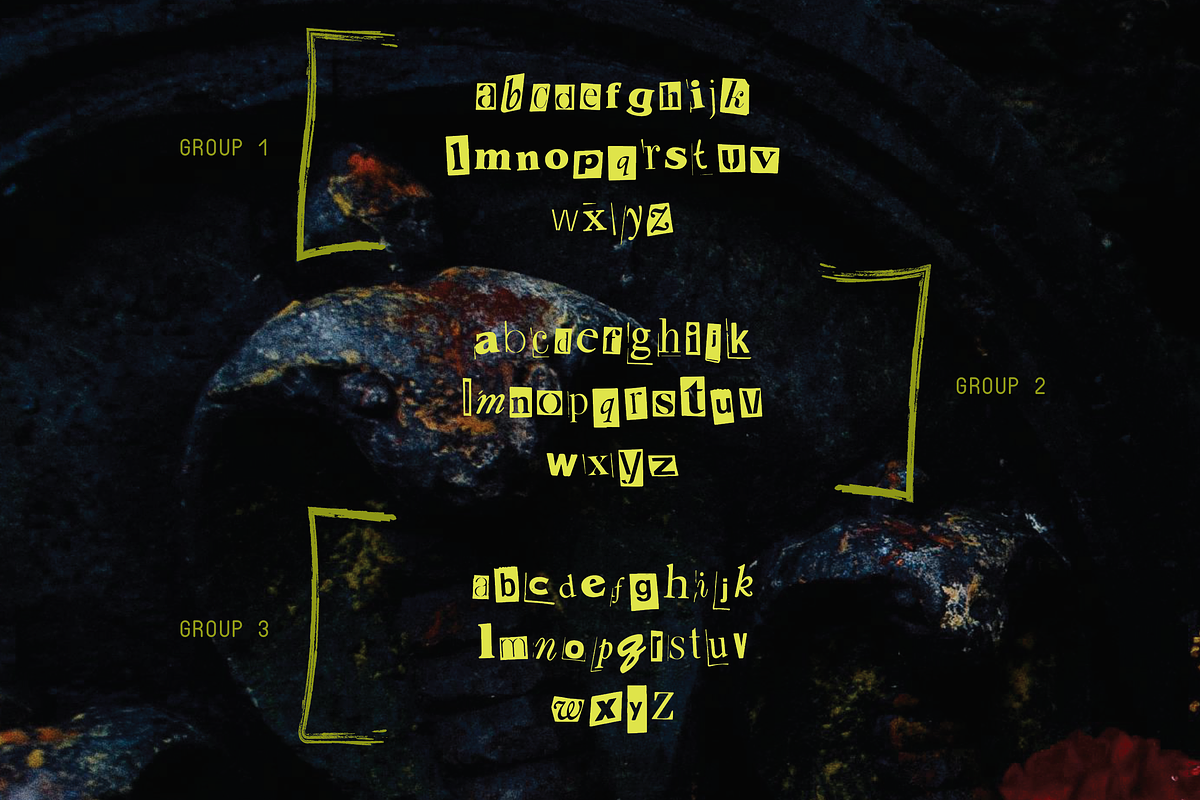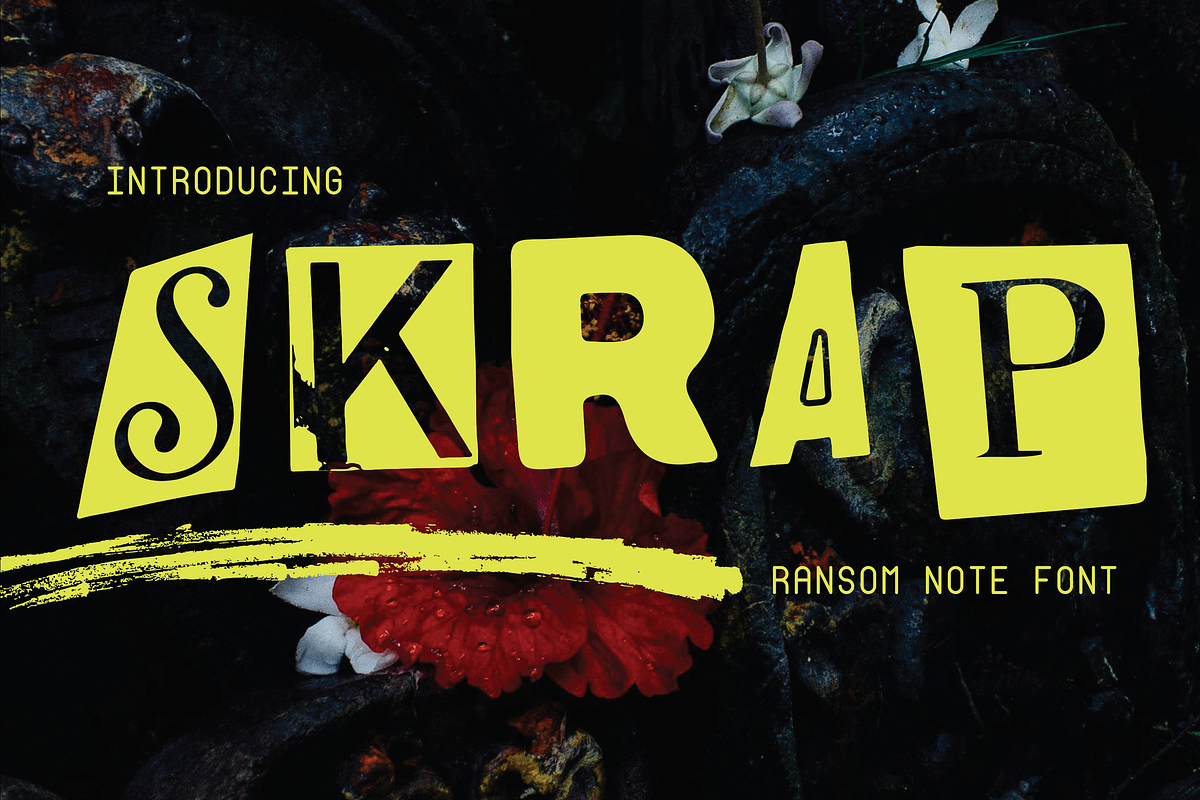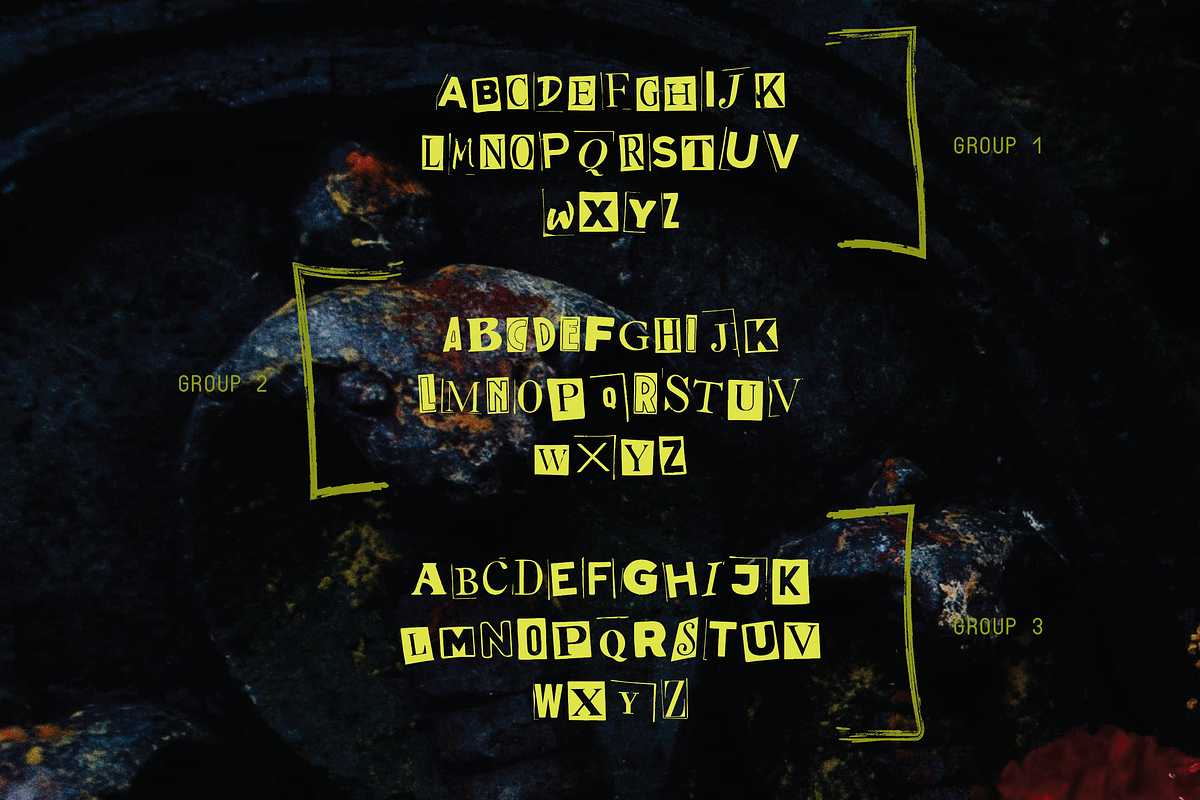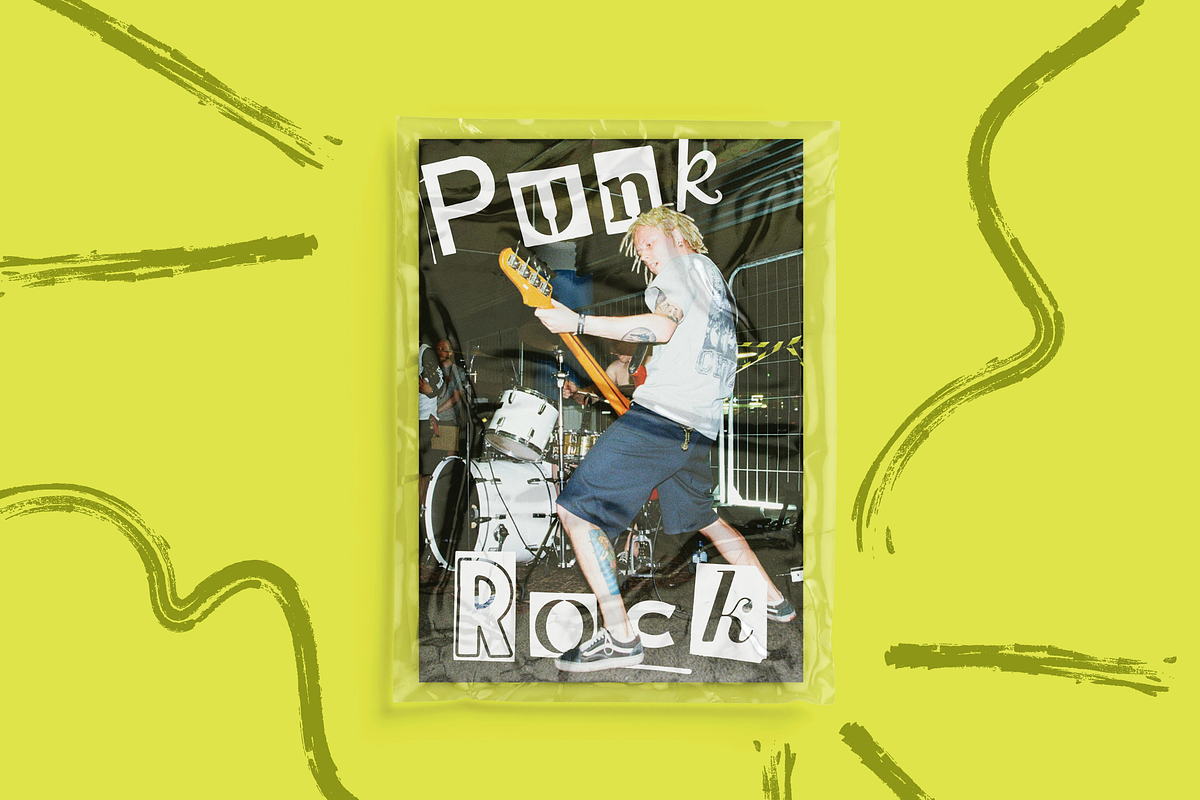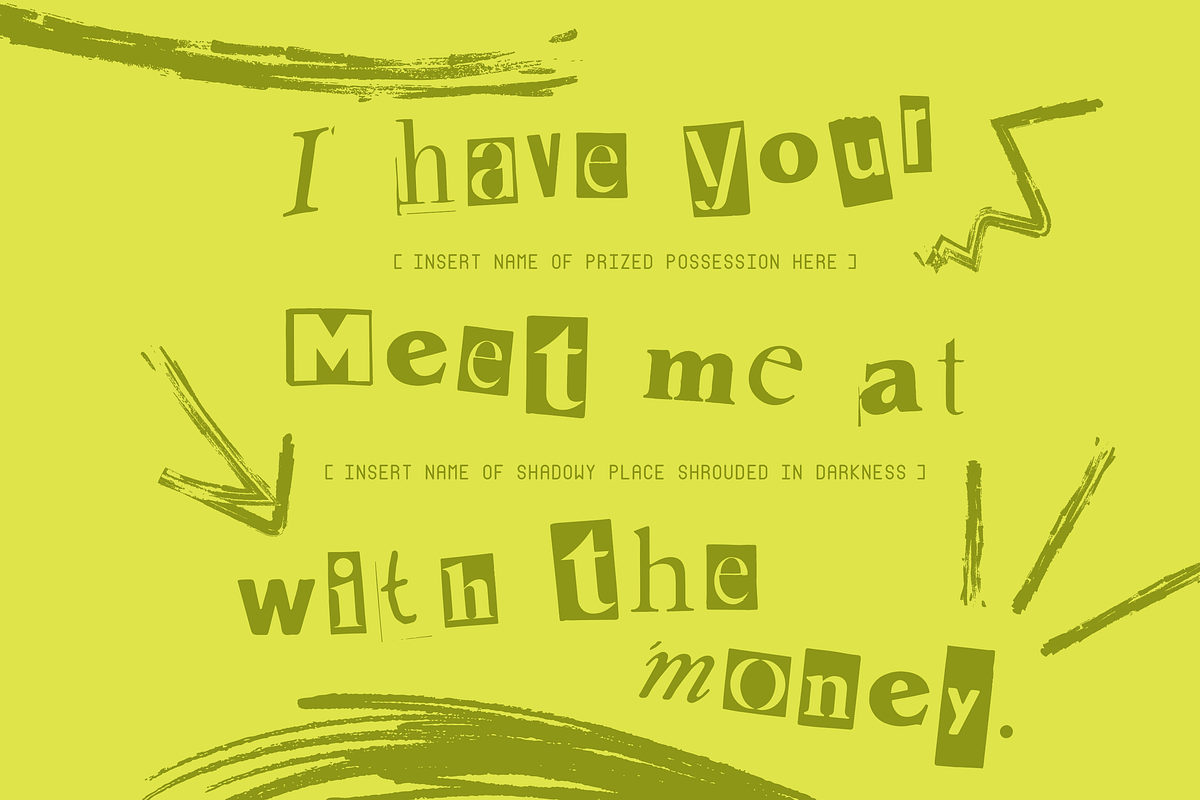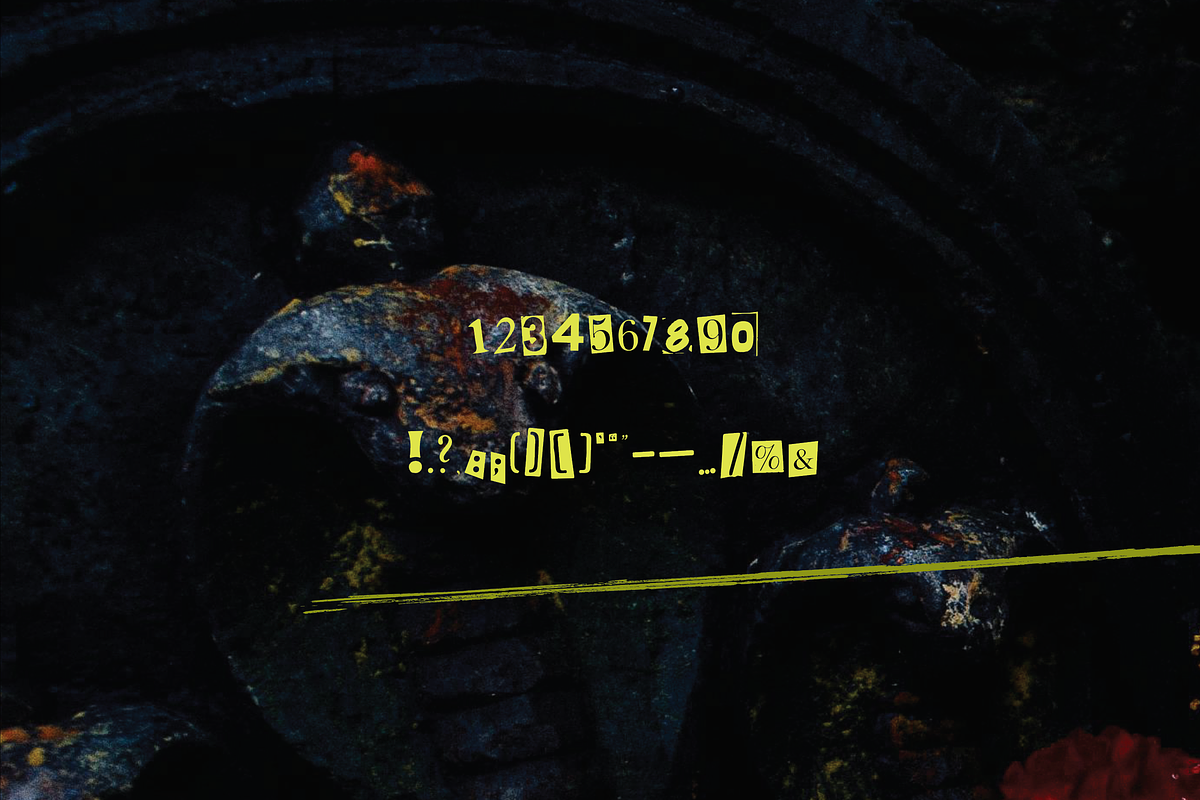
SKRAP
Introducing SKRAP; the "ransom note" font. SKRAP features 185 glyphs. Three versions of each letter, capitals and lowercase, excluding numbers and symbols. These variations give you a more grungy, chaotic vibe that every great ransom note needs!